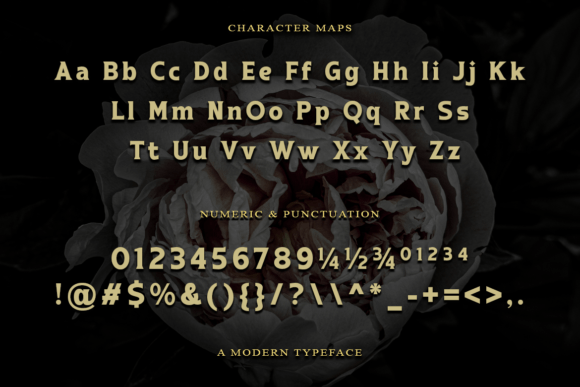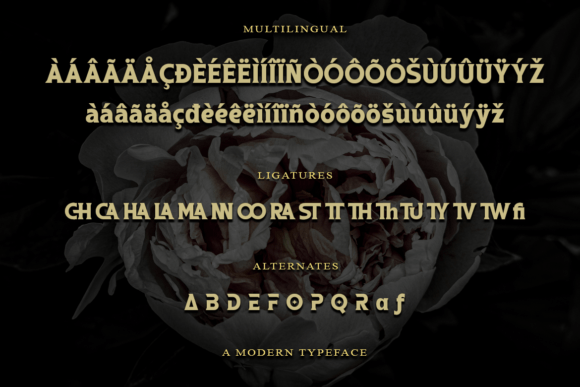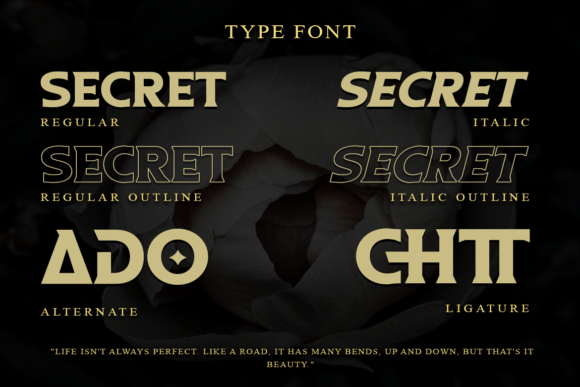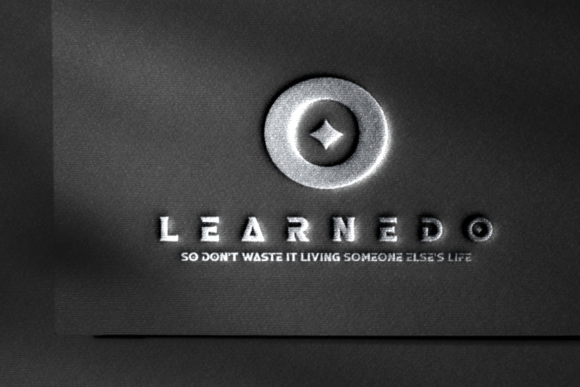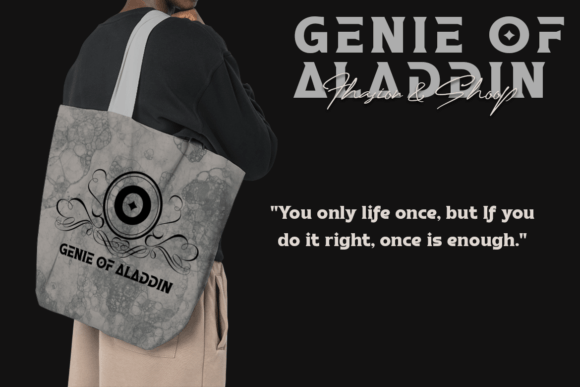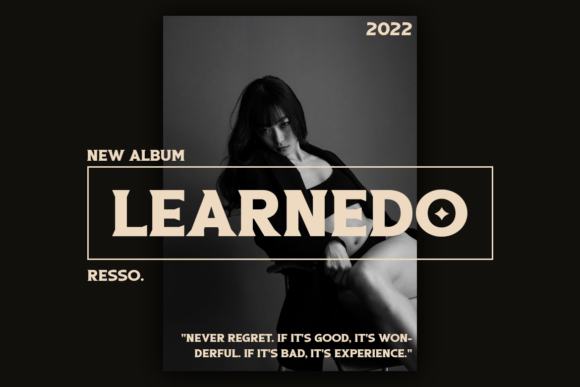
Introducing Chrafest Font: The Ultimate Choice for Daring Typography
In the world of typography, fonts play a crucial role in conveying the tone and personality of a design. For designers and crafters looking for a bold and assertive font to make their projects stand out, Chrafest Font is an excellent choice. This modern and cool serif font is designed to add a touch of sophistication and elegance to any design, while its strong and daring presence demands attention.
What Makes Chrafest Font Special?
Chrafest Font is not just another serif font; it’s a game-changer for anyone looking for a typography that makes a statement. Here are some key features that make Chrafest Font a perfect choice for your design projects:
- Modern and Cool Design: Chrafest Font boasts a modern and cool design that is sure to appeal to designers and crafters looking for a fresh take on traditional serif fonts.
- Bold, Strong, and Assertive: This font is designed to be bold, strong, and assertive, making it perfect for projects that require a daring typography.
- PUA Encoded: Chrafest Font is PUA (Private Use Area) encoded, which means that all the glyphs and ligatures are easily accessible. This feature makes it easy to use and customize the font to suit your design needs.
Use Cases for Chrafest Font
Chrafest Font is a versatile font that can be used in a variety of design projects, including:
- Logo Design: The bold and strong presence of Chrafest Font makes it an excellent choice for logo design, especially for brands that want to make a statement.
- Poster Design: Whether you’re designing a poster for a movie, event, or product launch, Chrafest Font is sure to grab attention.
- Packaging Design: Add a touch of sophistication and elegance to your packaging design with Chrafest Font.
- Digital Media: Use Chrafest Font in your digital media projects, such as video titles, social media graphics, and website headers.
Benefits of Using Chrafest Font
By choosing Chrafest Font for your design projects, you can enjoy several benefits, including:
- Unique and Memorable Designs: With Chrafest Font, you can create unique and memorable designs that stand out from the crowd.
- Easily Customizable: The PUA encoding of Chrafest Font makes it easy to customize and adapt to your design needs.
- Time-Saving: With Chrafest Font, you can save time and effort in designing and refining your typography.
Tips for Using Chrafest Font Effectively
To get the most out of Chrafest Font, here are some tips to keep in mind:
- Pair it with Other Fonts: Experiment with pairing Chrafest Font with other fonts to create a unique and visually appealing typography.
- Use it for Headlines: Chrafest Font is perfect for headlines and titles, so use it to make a statement and grab attention.
- Experiment with Colors: Try out different colors and gradients to add depth and interest to your design.
In conclusion, Chrafest Font is an excellent choice for designers and crafters looking for a modern and cool serif font that makes a statement. With its bold, strong, and assertive presence, PUA encoding, and versatility, Chrafest Font is perfect for a wide range of design projects. By following the tips and guidelines outlined in this article, you can unlock the full potential of Chrafest Font and create stunning designs that leave a lasting impression.